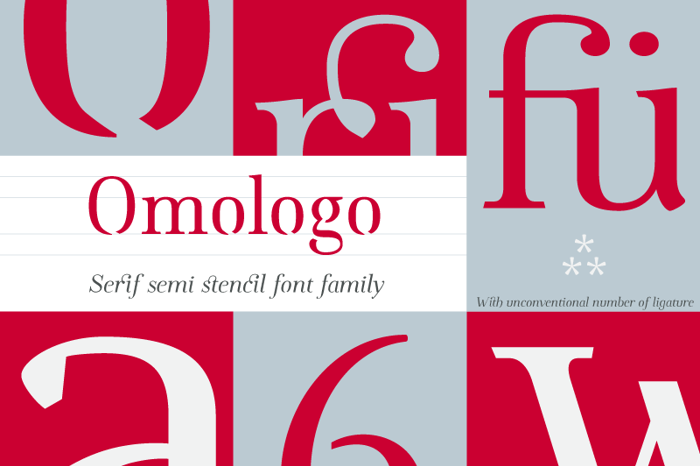
Omologo Personal Font
Thanks for download a free* version of 'Omologo', a brand new Serif Semi Stencil font family based on "old style" typography, translated in modern era with Unconventional number of LIGATURE. A mix of geometric forms, antique ligature and oblsolete (or forget?) gliphs.
Currently it comes in 2 styles: round and italic.
Each weight includes extended language support, ligatures and up to 640 gliph (2000 gliphs in the complete version).
Standard ligature (liga)
Lining + Oldstyle figure linear or tabular (lnum, onum)
Numerator + Denominator + Subscript + Superscript (pnum, tnum, sups, subs)
Fraction (frac)
Kerning table (kern)
Discretionary ligature (dlig)
Alternative style set (ss01, ss02)
Small capital (c2sc, smcp)
Omologo is incredibly useful on most of creative field like magazine, poster, book, composition and it's a great ingredient to have in every kitchen!